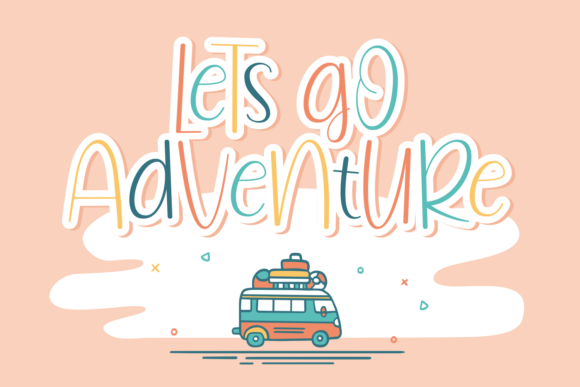
Introducing Beautiful Marie Font: The Ultimate Display Font for Friendly Designs
Are you tired of using the same old fonts for your designs? Look no further than Beautiful Marie Font, a childish and easy-to-read display font that’s perfect for conveying impeccable friendliness. Whether you’re a designer, a crafty DIY enthusiast, or just someone who loves to create, Beautiful Marie Font is sure to become your new go-to font for all your design needs.
What is Beautiful Marie Font?
Beautiful Marie Font is a display font designed to bring a touch of friendliness and approachability to your designs. Its childish and playful style makes it perfect for a wide range of applications, from crafts and digital design to presentations and greeting cards. The font’s clean and easy-to-read lines ensure that your message is conveyed clearly and effectively, making it ideal for use in a variety of contexts.
Key Features of Beautiful Marie Font
- Childish and playful style: Beautiful Marie Font has a fun and youthful vibe that’s perfect for designs that need to appeal to a younger audience.
- Easy-to-read lines: The font’s clean and clear lines ensure that your message is conveyed quickly and easily, making it perfect for use in digital and print designs.
- Impeccable friendliness: The font’s friendly and approachable style makes it perfect for designs that need to convey a sense of warmth and approachability.
- Versatile: Beautiful Marie Font can be used in a wide range of applications, from crafts and digital design to presentations and greeting cards.
Uses for Beautiful Marie Font
Beautiful Marie Font is a versatile font that can be used in a wide range of applications. Here are just a few ideas to get you started:
- Crafts: Beautiful Marie Font is perfect for use in craft projects, such as scrapbooking, card making, and DIY gifts.
- Digital design: The font’s clean and easy-to-read lines make it perfect for use in digital designs, such as social media graphics, blog posts, and website headers.
- Presentations: Beautiful Marie Font is a great choice for presentations, as its friendly and approachable style helps to engage and inform your audience.
- Greeting cards: The font’s childish and playful style makes it perfect for use in greeting cards, such as birthday cards, get-well cards, and holiday cards.
Why Choose Beautiful Marie Font?
There are many fonts to choose from, but Beautiful Marie Font stands out from the crowd. Here are just a few reasons why:
- Unique style: Beautiful Marie Font has a unique and distinctive style that’s sure to set your designs apart from the crowd.
- Ease of use: The font’s clean and easy-to-read lines make it easy to use in a wide range of applications.
- Friendliness: The font’s friendly and approachable style makes it perfect for designs that need to convey a sense of warmth and approachability.
- Versatility: Beautiful Marie Font can be used in a wide range of applications, making it a great addition to any designer’s toolkit.
Tips for Using Beautiful Marie Font
Here are a few tips for getting the most out of Beautiful Marie Font:
- Use it in combination with other fonts: Beautiful Marie Font pairs well with a wide range of other fonts, so don’t be afraid to experiment with different combinations.
- Experiment with different sizes and colors: The font’s clean and easy-to-read lines make it perfect for use in a wide range of sizes and colors.
- Use it to add a personal touch: Beautiful Marie Font is perfect for adding a personal touch to your designs, so don’t be afraid to get creative and add your own unique flair.
Beautiful Marie Font is a unique and versatile display font that’s perfect for conveying impeccable friendliness. Its childish and playful style makes it perfect for a wide range of applications, from crafts and digital design to presentations and greeting cards. With its clean and easy-to-read lines, friendly and approachable style, and versatility, Beautiful Marie Font is sure to become your new go-to font for all your design needs.